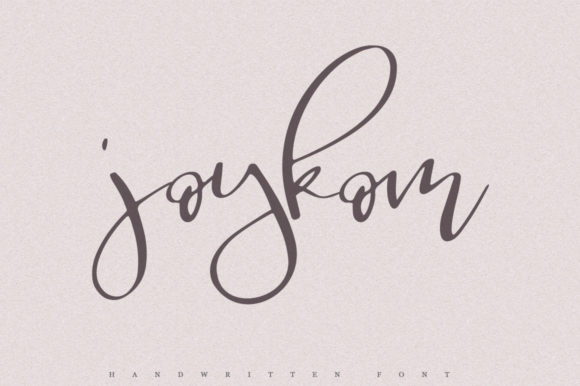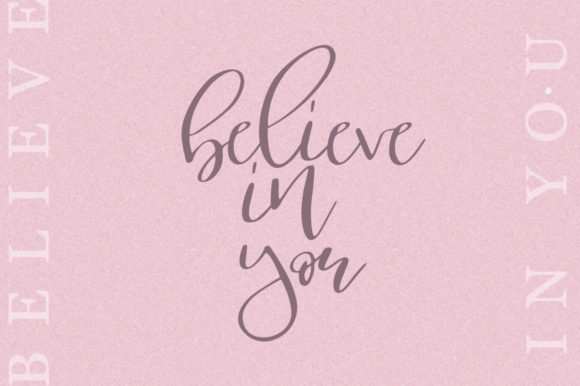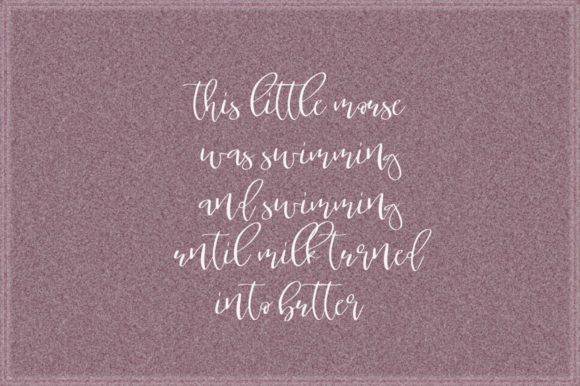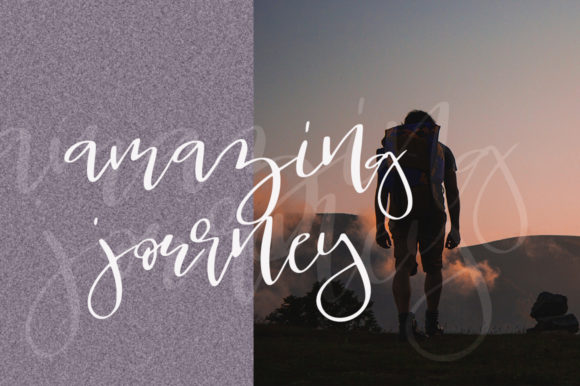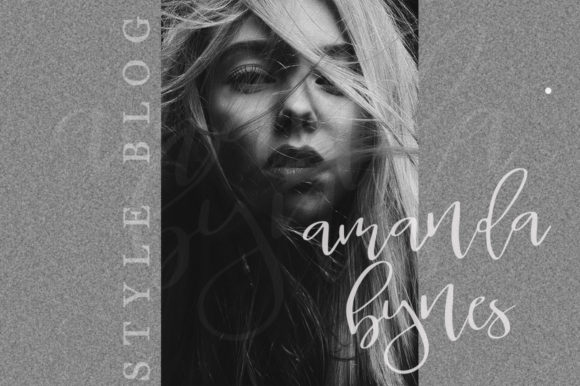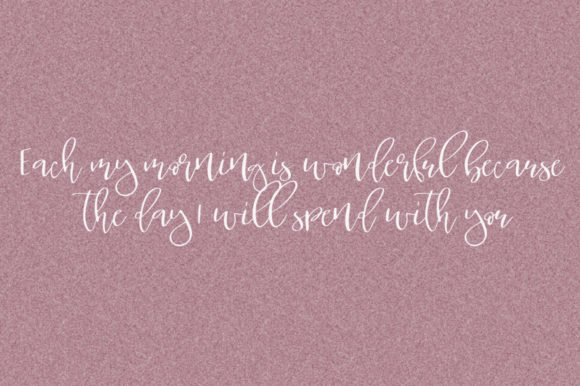
HomeScript FontsJoykom Font Script Fonts Joykom Font FacebookXPinterestWhatsApp Joykom Font Poster 2 Joykom Font Poster 3 Joykom Font Poster 4 Joykom Font Poster 5 Joykom Font Poster 6 About Joykom Font Joykom is a classic, yet contemporary handwritten font with a unique feel. Fall in love with its authentic charm! DOWNLOAD NOW People also explored Sunn Pro Font Butterfly Font Agree Font Swite Brush Font Shark Font Amazed Shine Font Branding Autumn Font Baby Shine Font Industry Font 330 0 TagsJoykom Font Previous articlePetri Plate FontNext articleAdelliya Script Font LEAVE A REPLY Cancel reply Comment: Please enter your comment! Name:* Please enter your name here Email:* You have entered an incorrect email address! Please enter your email address here Website: Save my name, email, and website in this browser for the next time I comment. Personal Use Free Lovetle Personal Use Free Read more about this font Adventure Font Personal Use Free Read more about this font England Personal Use Free Read more about this font Dacquoise Personal Use Free Read more about this font BLOG The 10 Best Handwriting Fonts to Add Personality to Your Designs 10 of the Best Handwriting Fonts for Adding Personality to Your Designs There will undoubtedly be no other better choice than handwriting fonts to give... Top 10 Handwritten Fonts That Elevate Your Designs 5 Fonts That Will Dominate Design Trends in 2026 Fonts That Capture the Spirit of New York City